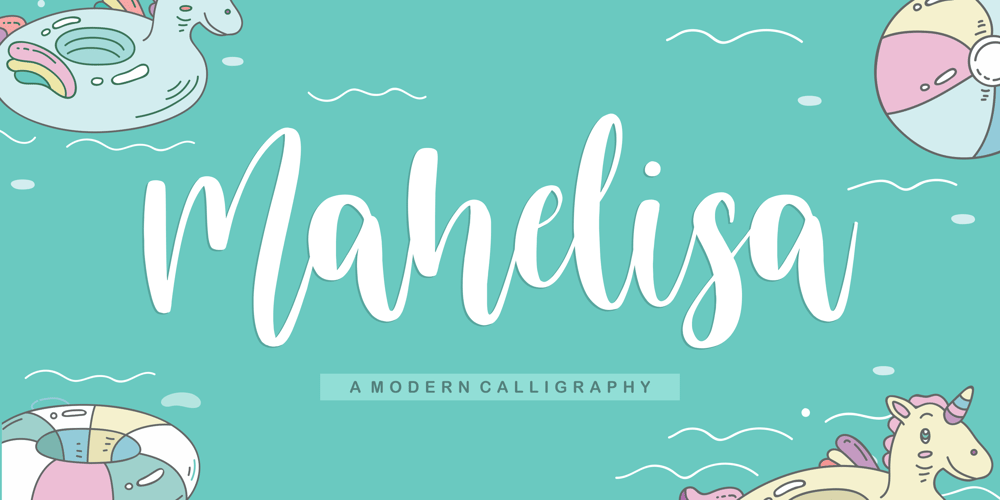
Mahelisa Font Family was designed by Restu Angga and published by Balpirick. Mahelisa contains 1 styles and family package options. Proudly Present, Mahelisa Font.Mahelisa is a Modern Calligraphy font.Mahelisa is perfect for product packaging, branding project, megazine, social media, wedding, or just used to express words above the background.This font includes TTF and OTF, Mahelisa also multilingual support.Enjoy the font, feel free to comment or feedback, send me PM or email.Thank you!